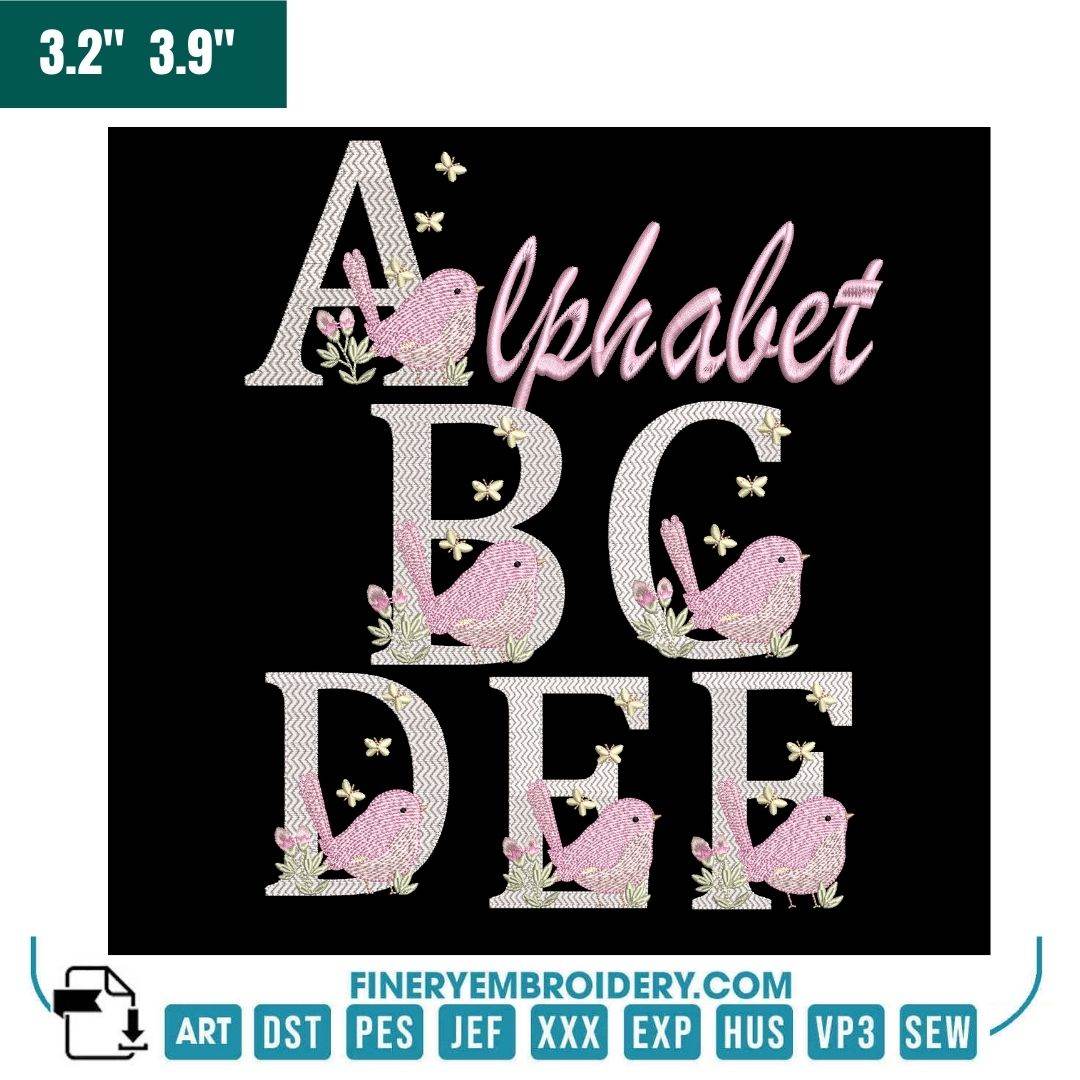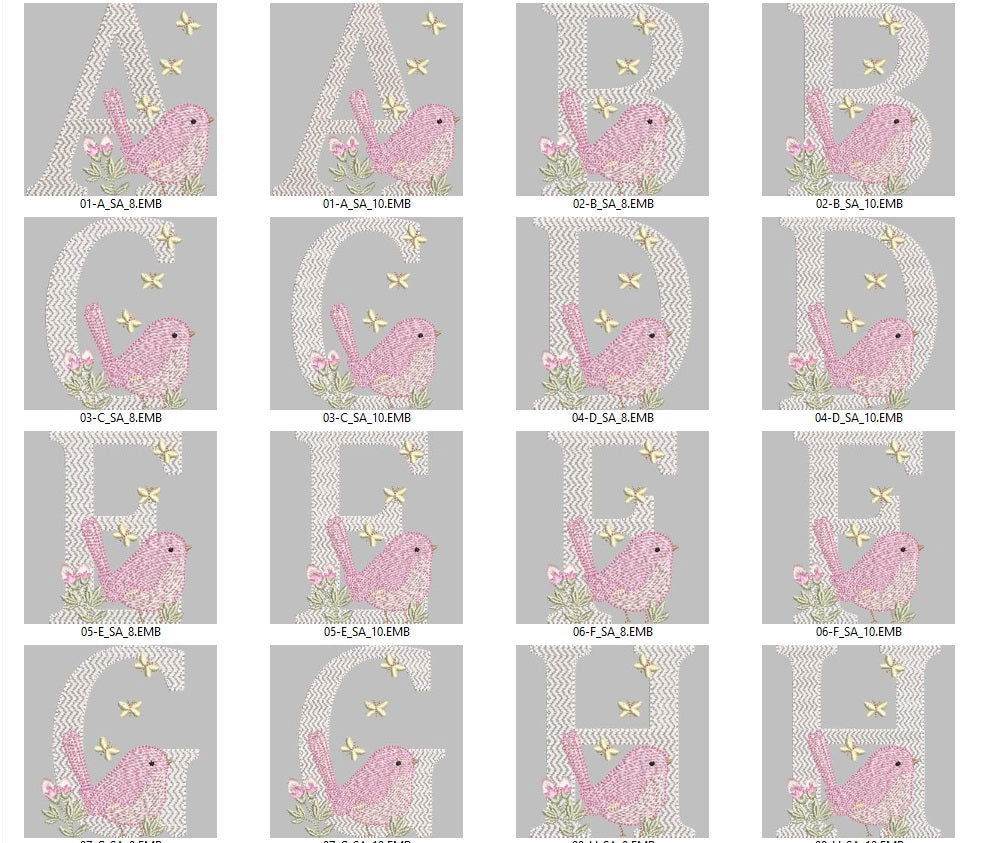
Floral Alphabet with Birds - Embroidery Font Set
Unleash your creativity with our Floral Alphabet with Birds - Embroidery Font Set, where nature meets artistry in every letter!
Introducing the Floral Alphabet with Birds - Embroidery Font Set, a delightful collection designed to inspire and elevate your embroidery projects. This unique set features an enchanting floral alphabet, beautifully complemented by charming birds, making it perfect for those looking to add a touch of whimsy and elegance to their creations.
Why You'll Love This Design
You'll fall in love with the intricate details of this design that effortlessly brings the beauty of nature into your embroidery work. Each letter in this alphabet is adorned with vibrant flowers and delightful birds, creating a stunning visual appeal that enhances any project. The high-quality craftsmanship ensures that every piece you create will be a masterpiece.
Creative Applications
This embroidery font set is incredibly versatile! Use it for monograms, personalized gifts, or charming home decor accents. Imagine adorning bed linens, tote bags, or even custom apparel with these whimsical letters. The possibilities are endless, allowing you to express your creativity in countless ways!
Digitized for Passionate Embroiderers
We understand the passion of dedicated embroiderers, which is why we've meticulously digitized this font set to ensure clarity and ease of use. Whether you're a novice or an experienced creator, our design integrates seamlessly into your collection, allowing you to bring your artistic visions to life with confidence and originality.
Unleash your creativity with our Floral Alphabet with Birds - Embroidery Font Set, where nature meets artistry in every letter!
Introducing the Floral Alphabet with Birds - Embroidery Font Set, a delightful collection designed to inspire and elevate your embroidery projects. This unique set features an enchanting floral alphabet, beautifully complemented by charming birds, making it perfect for those looking to add a touch of whimsy and elegance to their creations.
Why You'll Love This Design
You'll fall in love with the intricate details of this design that effortlessly brings the beauty of nature into your embroidery work. Each letter in this alphabet is adorned with vibrant flowers and delightful birds, creating a stunning visual appeal that enhances any project. The high-quality craftsmanship ensures that every piece you create will be a masterpiece.
Creative Applications
This embroidery font set is incredibly versatile! Use it for monograms, personalized gifts, or charming home decor accents. Imagine adorning bed linens, tote bags, or even custom apparel with these whimsical letters. The possibilities are endless, allowing you to express your creativity in countless ways!
Digitized for Passionate Embroiderers
We understand the passion of dedicated embroiderers, which is why we've meticulously digitized this font set to ensure clarity and ease of use. Whether you're a novice or an experienced creator, our design integrates seamlessly into your collection, allowing you to bring your artistic visions to life with confidence and originality.